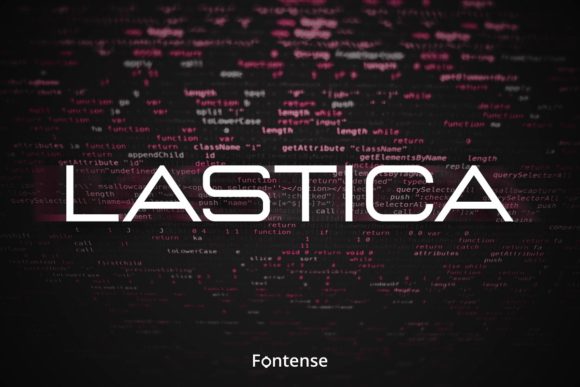
Introducing Lastica Font, a captivating sans serif masterpiece created by themesocio. With its smart and modern design, Lastica is guaranteed to leave a lasting impression on your creative projects. Get ready to be enchanted by its unique charm and fall head over heels for its simplistic elegance!
When it comes to fonts, Lastica stands out from the crowd. Its sleek and contemporary style adds a touch of sophistication to any design, making it perfect for both professional and personal use. Whether you're designing a website, crafting a logo, or creating stunning graphics, Lastica will elevate your work to new heights.
One of the key features that sets Lastica apart is its versatility. This font seamlessly adapts to various design themes, allowing you to unleash your creativity without limitations. Its clean and clear lines ensure readability, making it ideal for both small and large text sizes. Whether you need to make a bold statement or convey a subtle message, Lastica is the perfect choice.
But what truly makes Lastica Font exceptional is its ability to evoke emotions. Imagine your audience being captivated by the elegance and charm of your typography. With Lastica, you have the power to make a lasting impression and create a memorable user experience. It's not just a font; it's a storyteller that beautifully communicates your message.